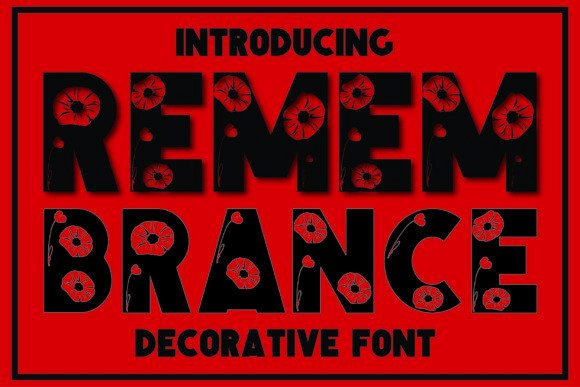
Dive into a typographic tribute to valor, sacrifice, and unwavering remembrance with Remembrance Font, an enchanting decorative font from the creative studio of CHEETAH DOODLE. Designed to commemorate the poignant occasion of Canada's War Remembrance Day, this font carries the solemn spirit of remembrance, honoring the brave souls who stood unwavering in the face of adversity.
With bold and striking characters, Remembrance Font exudes an aura of strength and resilience, reminding us of the unwavering courage displayed by those who fought for our freedom. The intricate poppy decorations that adorn each letter add an elegant touch, a symbolic representation of the sacrifices made and the lives lost in the pursuit of peace.
Step into a world of storytelling and visual intrigue with Remembrance Font, a font that elevates your designs beyond mere words, transforming them into emotive expressions of remembrance and gratitude. Immerse yourself in the rich tapestry of Remembrance Font's characters, each one a testament to the enduring spirit of those who came before us.
Unleash your creativity and craft designs that resonate with a profound sense of remembrance. Whether it's a commemorative poster, a heartfelt letter, or an impactful social media campaign, Remembrance Font lends its timeless elegance and emotional depth to every project, ensuring that the stories of courage, sacrifice, and remembrance are told with unwavering impact.
Embrace Remembrance Font, a font born from the ashes of remembrance, crafted with the utmost care and attention to detail. Let your designs radiate with the spirit of remembrance, paying homage to the heroes of our past and inspiring generations to come.